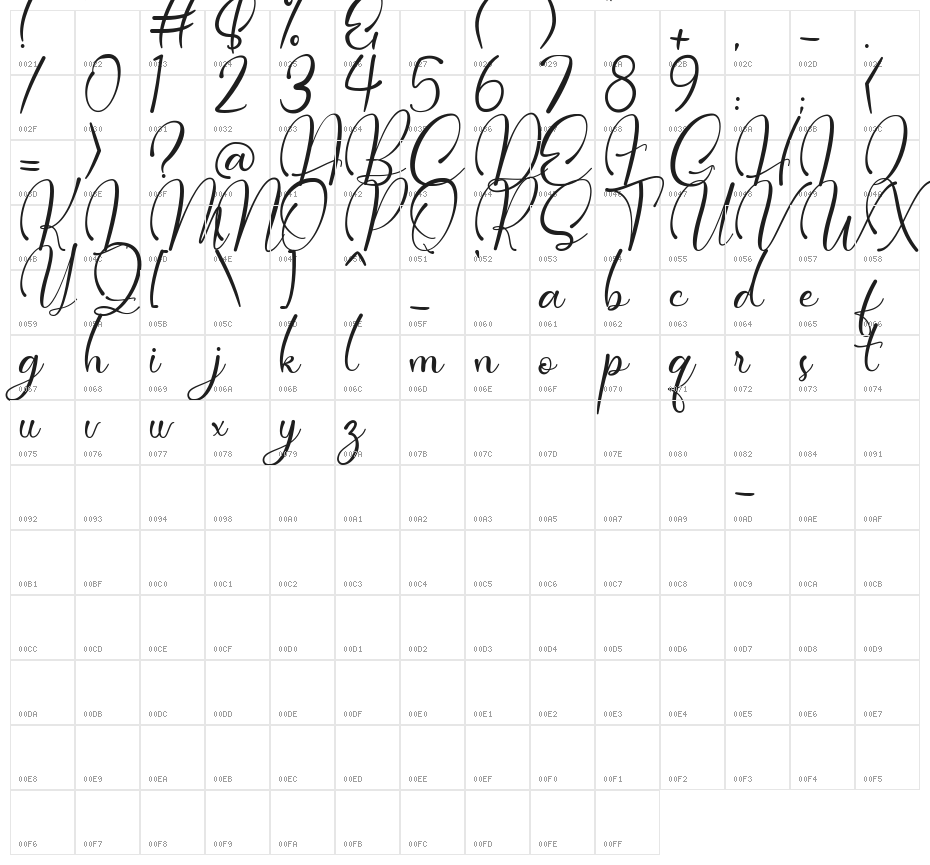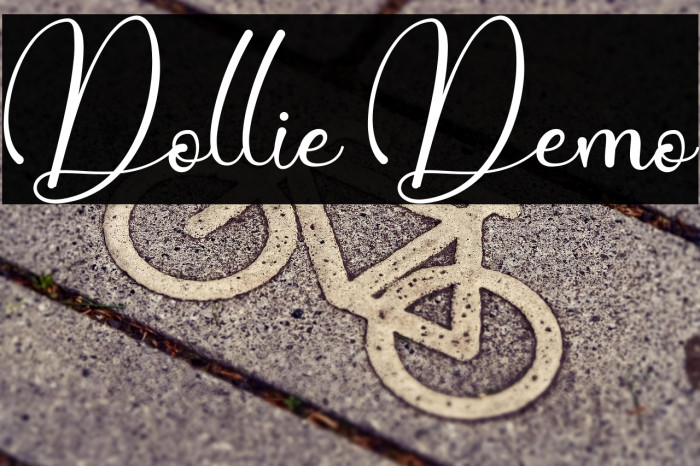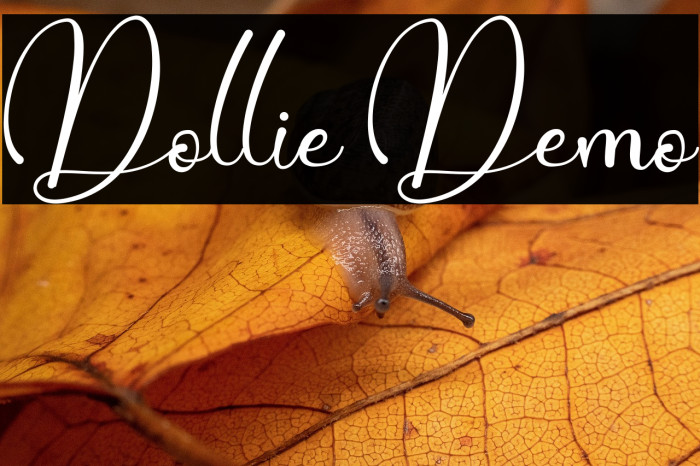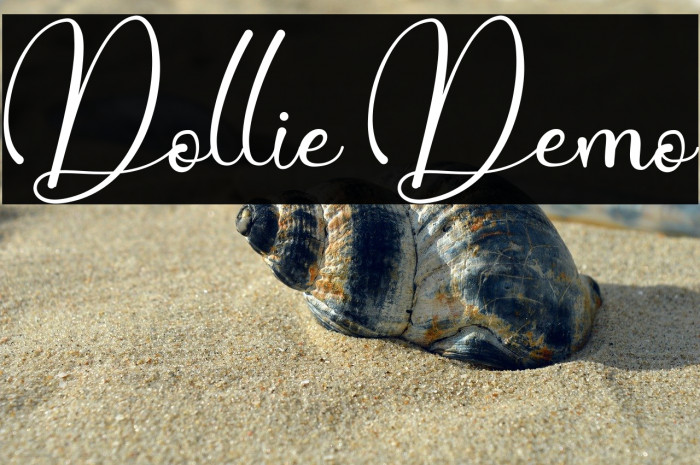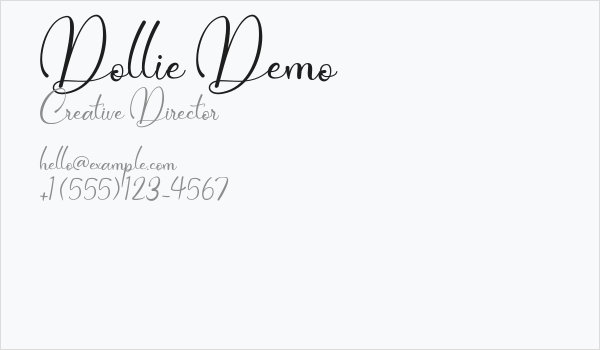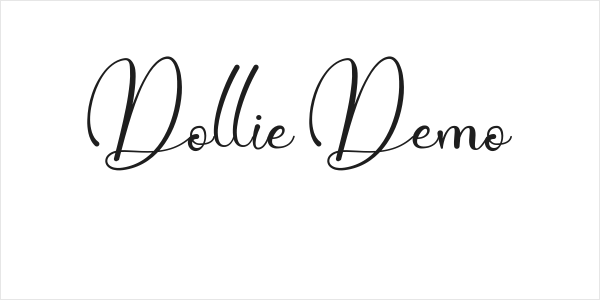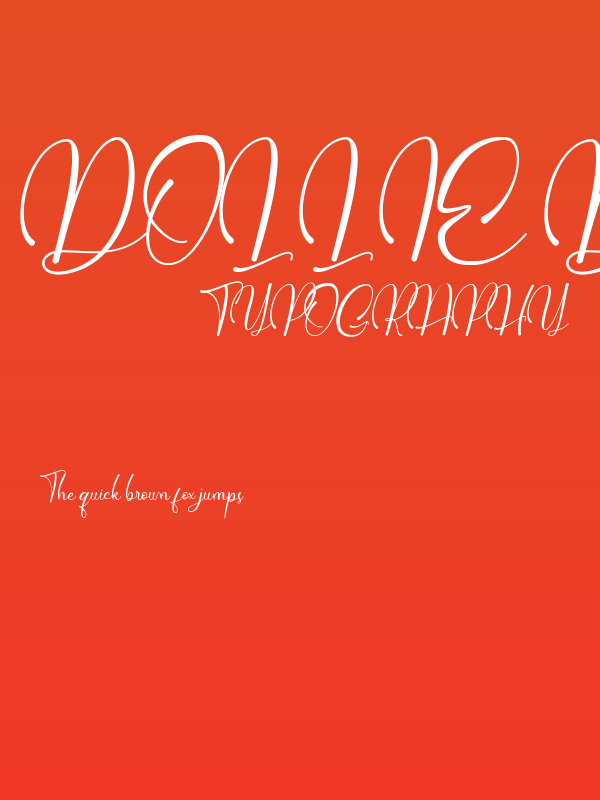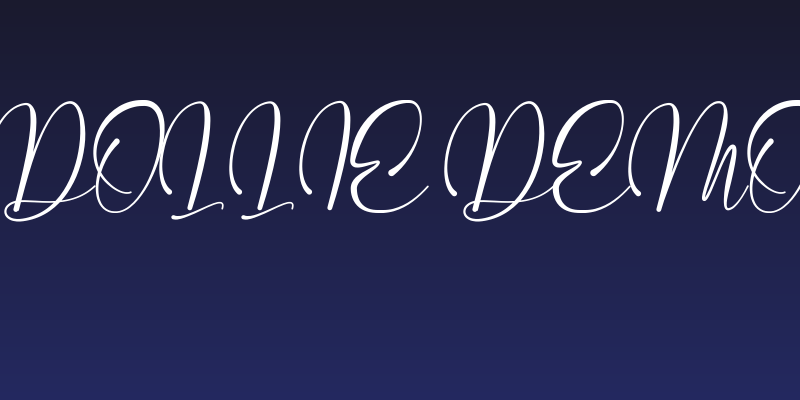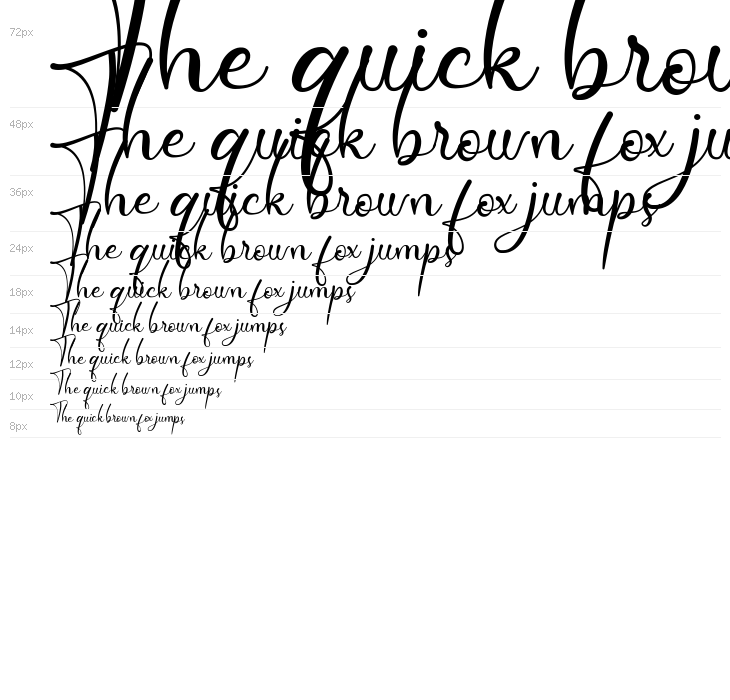
Dollie Demo Font
Dollie Demo Description
This font features an elegant and flowing script style, characterized by its cursive, handwritten appearance. The uppercase letters are ornate with loops and swirls, giving a sense of sophistication and grace. The lowercase letters maintain a consistent flow, enhancing readability while retaining the decorative nature. Numbers and special characters are designed to match the overall aesthetic, ensuring a cohesive look across all text. The font's style is reminiscent of classic calligraphy, making it suitable for formal and elegant designs.
| Proposed Projects | Ideal for wedding invitations, greeting cards, elegant branding, and any project requiring a touch of sophistication. |